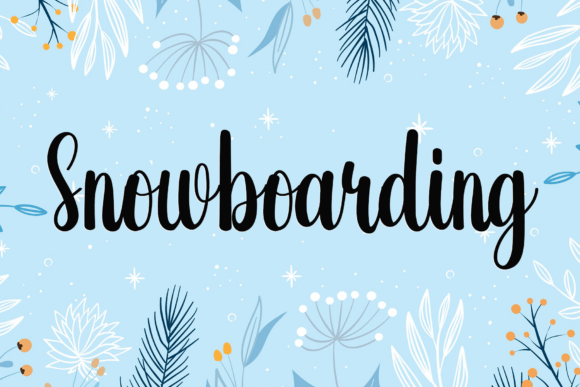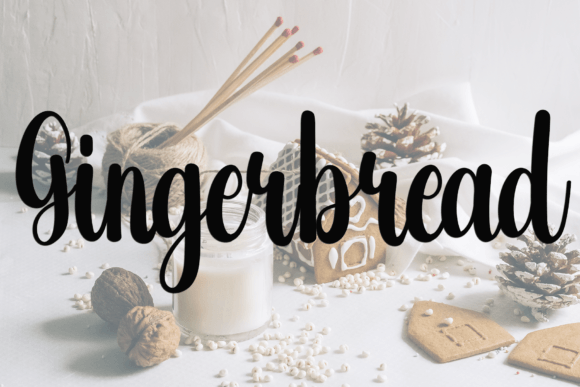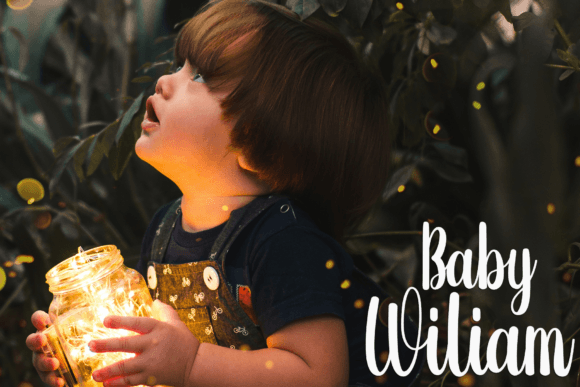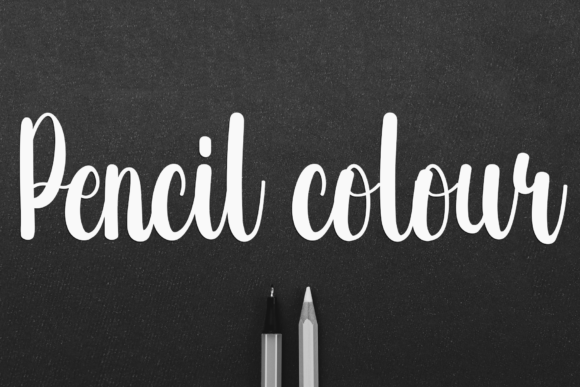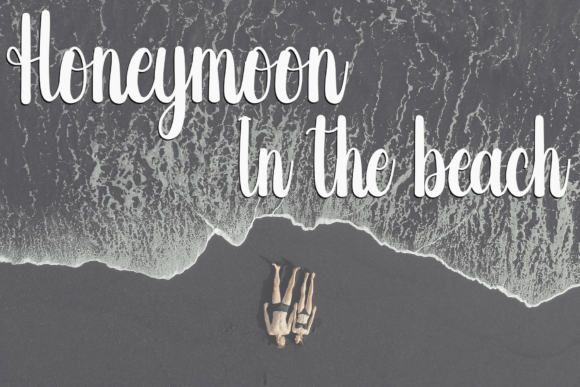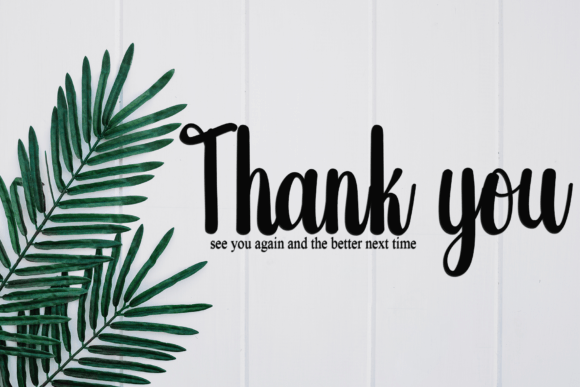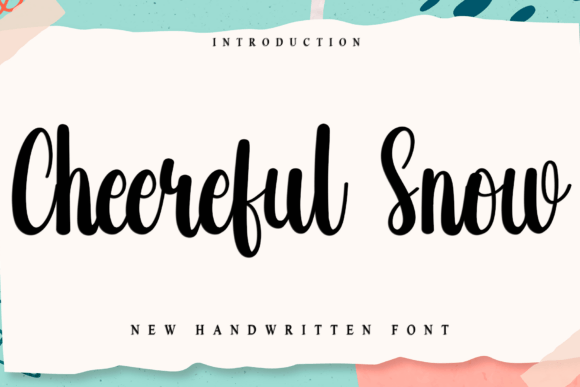
Introducing Cheerful Snow Font: Add a Touch of Simplicity and Warmth to Your Designs
Are you looking for a font that can add a simple and natural feel to your designs? Look no further than Cheerful Snow Font! This beautiful, handwritten font is perfect for a wide range of applications, from greeting cards to headlines, and is sure to bring a touch of warmth and personality to your next project.
What is Cheerful Snow Font?
Cheerful Snow Font is a simple, yet elegant handwritten font that is designed to bring a sense of joy and simplicity to your designs. With its clean lines and natural feel, this font is perfect for designers and crafters who want to add a personal touch to their work.
Key Features of Cheerful Snow Font
- Simple and Handwritten: Cheerful Snow Font is a handwritten font that is simple, yet elegant. Its clean lines and natural feel make it perfect for a wide range of applications.
- Versatile: This font is incredibly versatile and can be used for everything from greeting cards to headlines, and even social media graphics.
- Easy to Read: Cheerful Snow Font is easy to read, making it perfect for designs where you want to communicate a message clearly and effectively.
- Unique and Personal: This font has a unique and personal feel that will help your designs stand out from the crowd.
Uses for Cheerful Snow Font
Cheerful Snow Font is a versatile font that can be used for a wide range of applications, including:
- Greeting Cards: Add a personal touch to your greeting cards with Cheerful Snow Font. It’s perfect for Christmas cards, birthday cards, and more!
- Headlines: Use Cheerful Snow Font to add a touch of simplicity and elegance to your headlines. It’s perfect for blog posts, social media graphics, and more!
- Social Media Graphics: Cheerful Snow Font is perfect for social media graphics, including Facebook posts, Instagram graphics, and more!
- Invitations: Use Cheerful Snow Font to create beautiful and unique invitations for parties, weddings, and more!
Why Choose Cheerful Snow Font?
There are many fonts to choose from, but Cheerful Snow Font stands out from the crowd. Here are just a few reasons why:
- Unique and Personal: Cheerful Snow Font has a unique and personal feel that will help your designs stand out from the crowd.
- High-Quality: This font is high-quality and will look great in all of your designs.
If you’re looking for a font that can add a simple and natural feel to your designs, look no further than Cheerful Snow Font. This beautiful, handwritten font is perfect for a wide range of applications and is sure to bring a touch of warmth and personality to your next project. With its clean lines, natural feel, and versatility, Cheerful Snow Font is a great choice for designers and crafters of all levels.